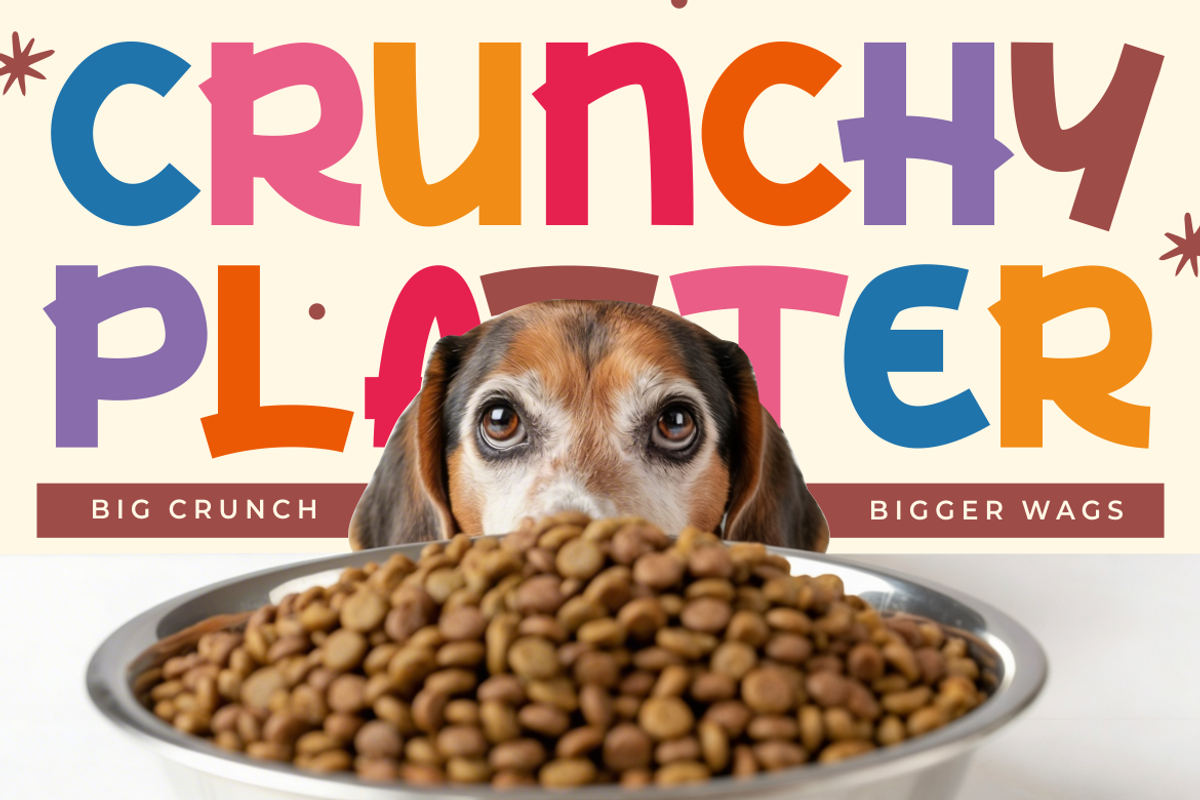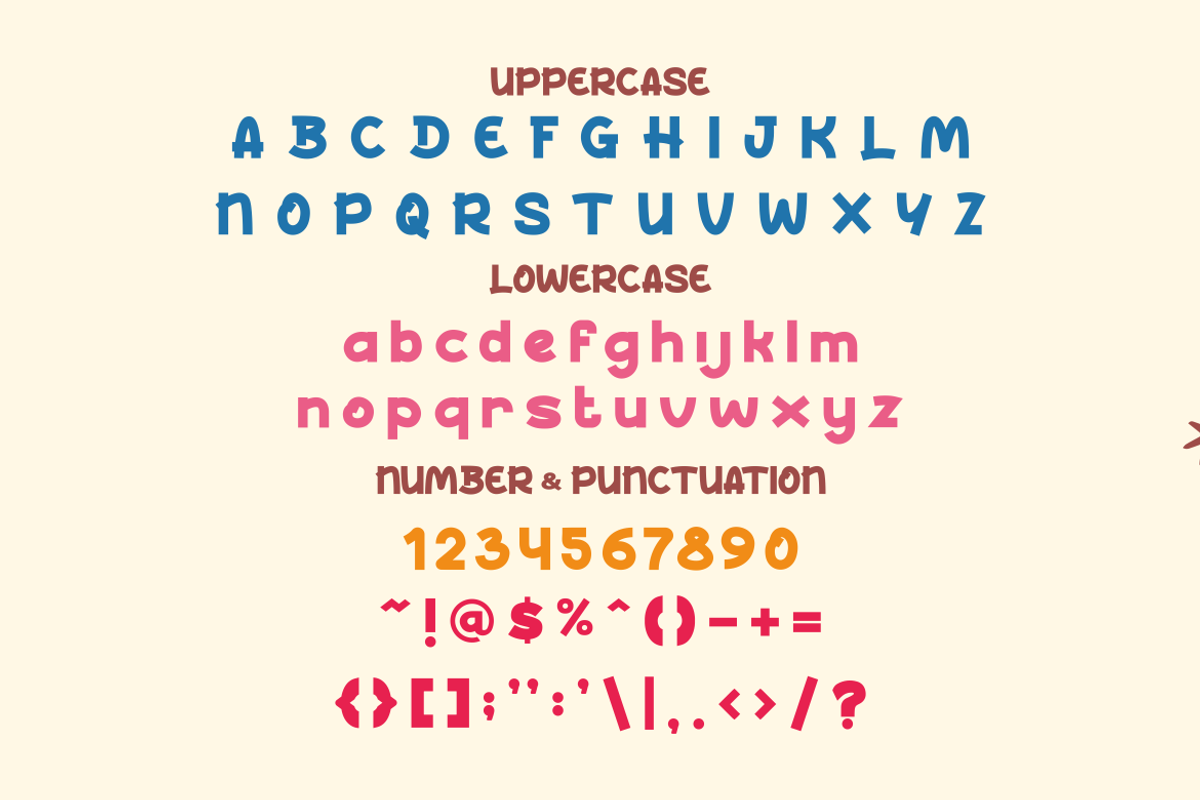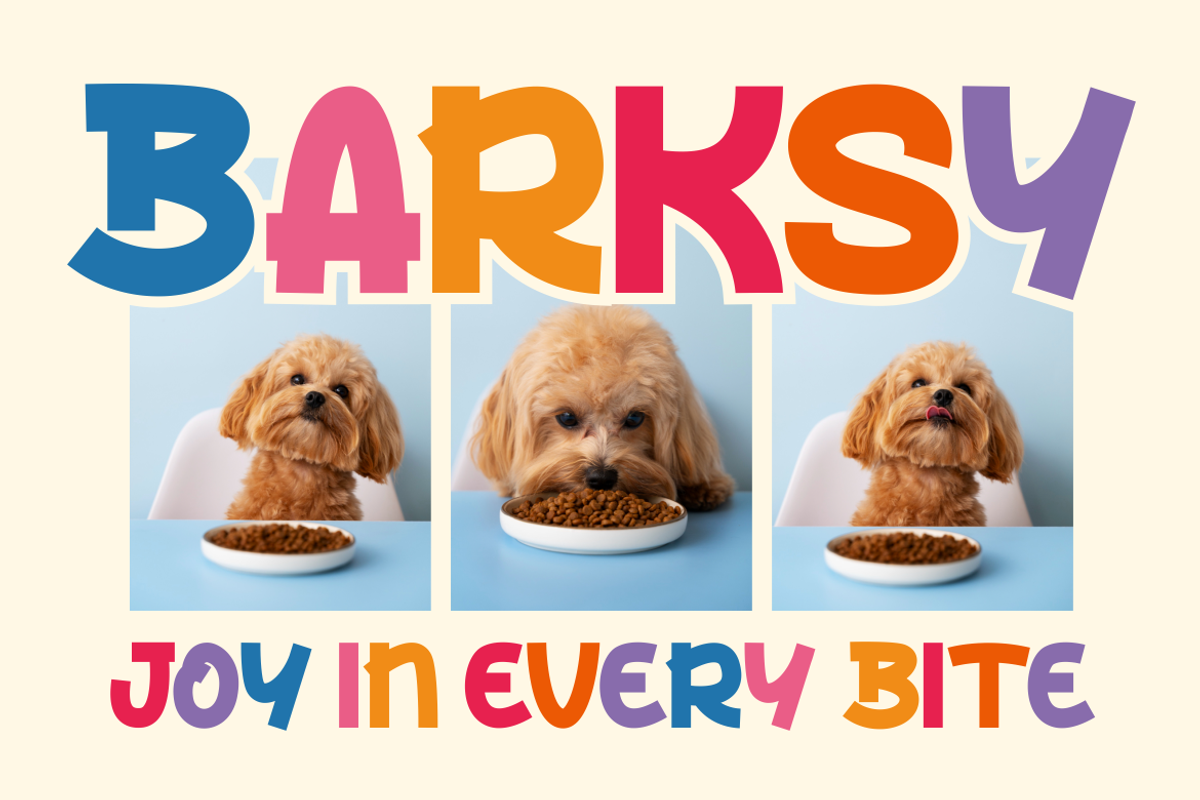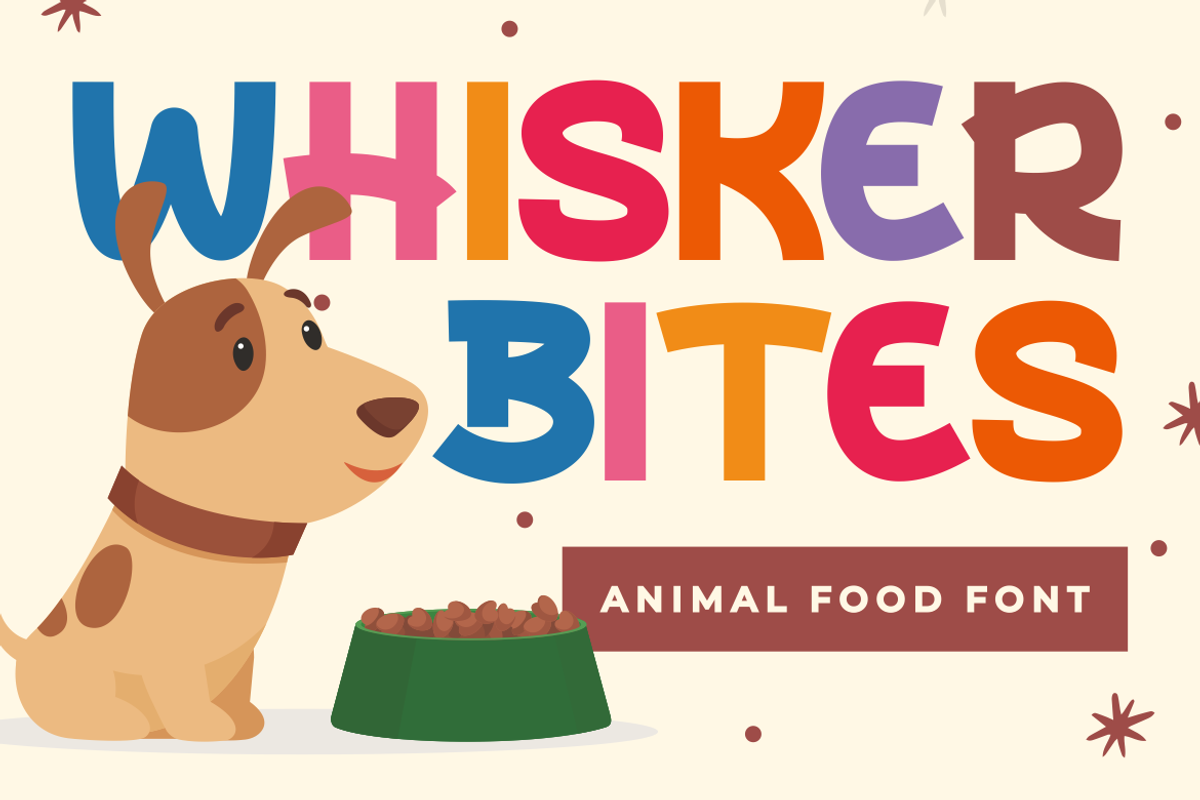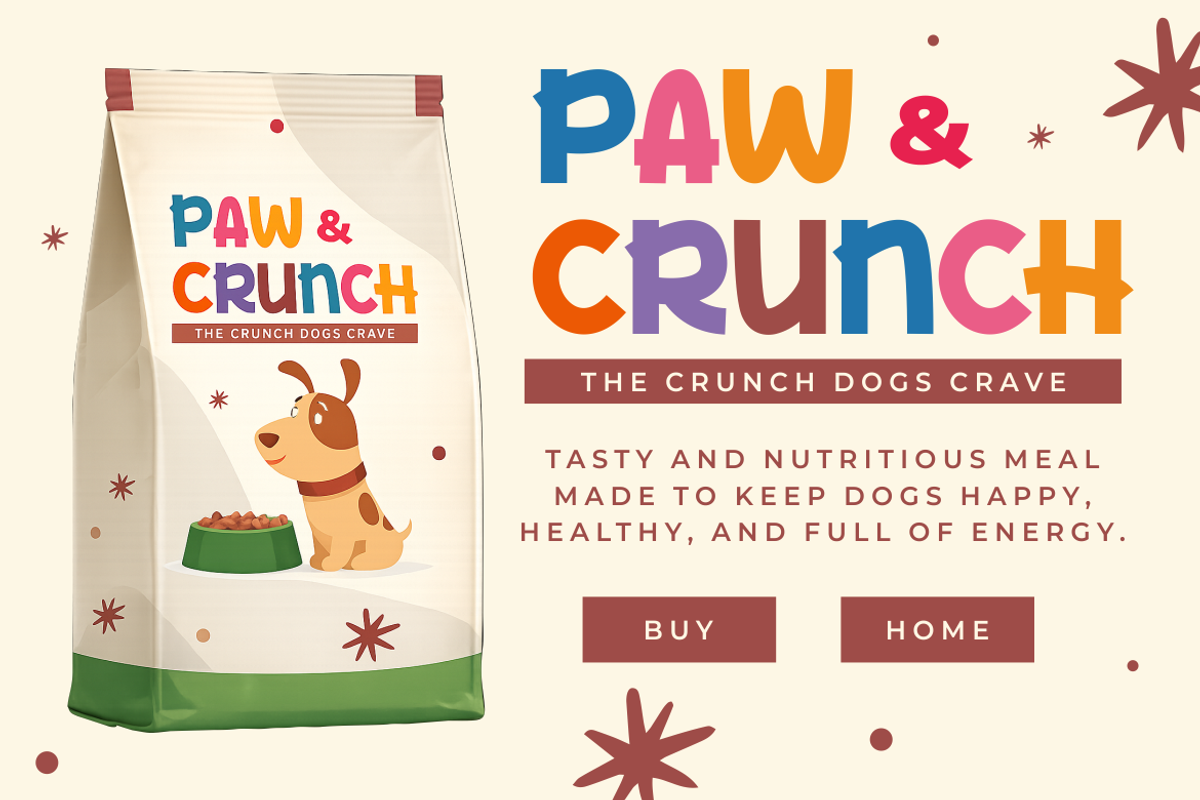
Whisker Bites Animal Food Font
Whisker Bites Animal Food Font features chunky letterforms with rounded corners and playful proportions that create a cheerful and friendly personality. The characters use thick strokes, soft edges, and slightly irregular shapes that give the font a handcrafted and energetic appearance. Each letter carries a bold structure with smooth curves and balanced spacing, making headlines easy to read while keeping a lively cartoon-inspired style. The uppercase and lowercase sets feel fun, approachable, and expressive without becoming messy. This font blends modern playful branding with casual display typography, making it suitable for pet businesses and family-focused products. Whisker Bites Animal Food Font works perfectly for pet food logos, animal shop branding, snack packaging, grooming businesses, veterinary promotions, pet café menus, toy labels, children product packaging, stickers, posters, social media graphics, and product advertising that needs a joyful and welcoming atmosphere.
This display font performs strongly in logo design, packaging layouts, promotional banners, product labels, magazine titles, mascot branding, and storefront signage. The thick playful structure helps important words stand out clearly in branding materials and advertising projects. Its rounded forms create a warm emotional connection that suits animal care and food-related businesses. The font style feels modern, cute, quirky, and energetic while remaining readable in large compositions. Designers can use this typeface for pet bakery branding, cat and dog food packaging, daycare promotions, pet event posters, greeting cards, book covers, crafting projects, and playful business identities. The character design also supports children themes, cartoon concepts, and cheerful marketing campaigns. This font creates a friendly visual tone that helps brands feel approachable, memorable, and full of personality.